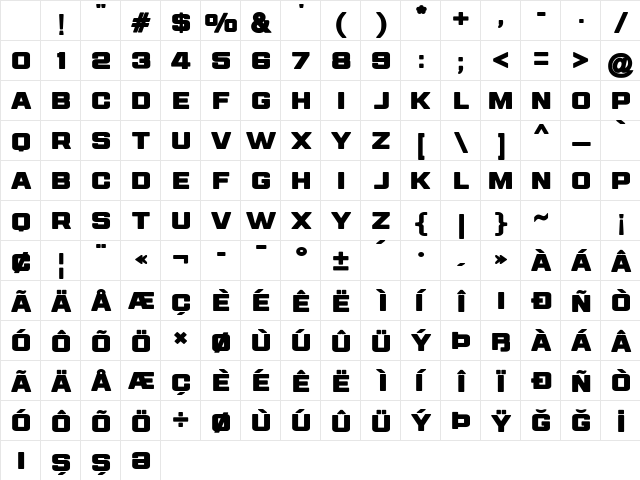
Complete FULLDOZER Extra Bold glyph index. Displaying only characters natively supported by FULLDOZER Extra Bold font.
FULLDOZER Extra is a composed and adaptable typeface that performs quietly and consistently across a wide range of design contexts. Its bold stroke weight gives it real presence on the page.